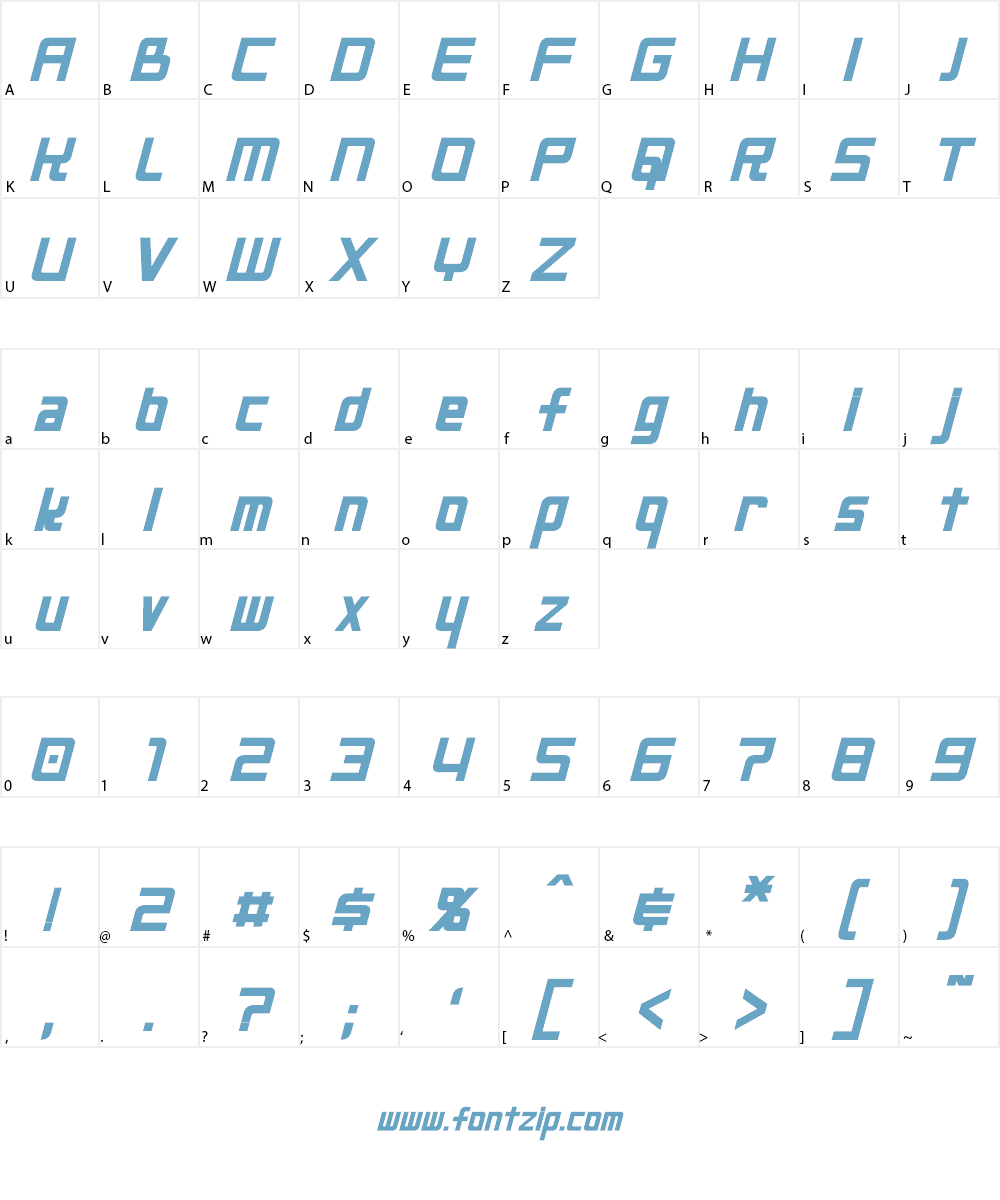
A simple, strong science-fiction font based loosely on the various SD Gundam combat games' logo. Includes extended character set, punctuation, euro. Includes bold and italic versions.